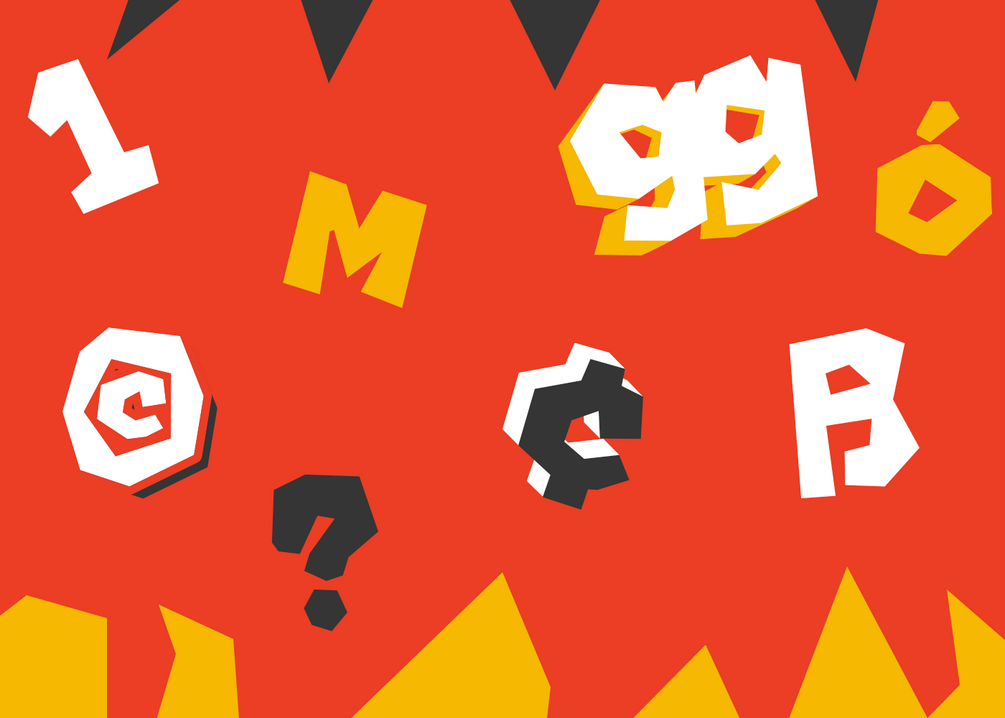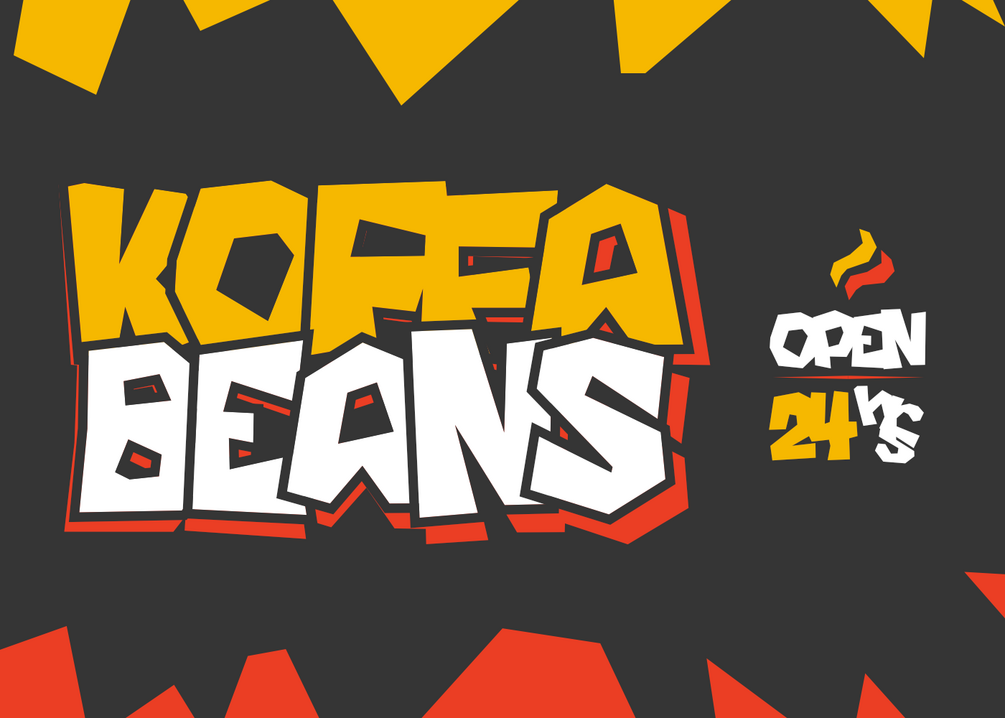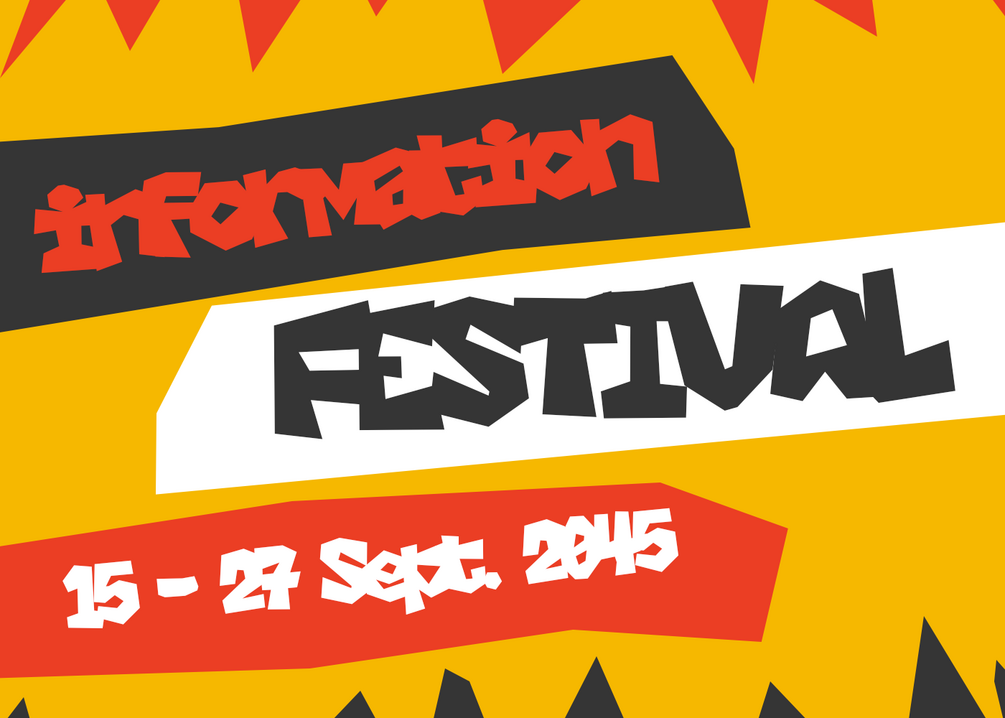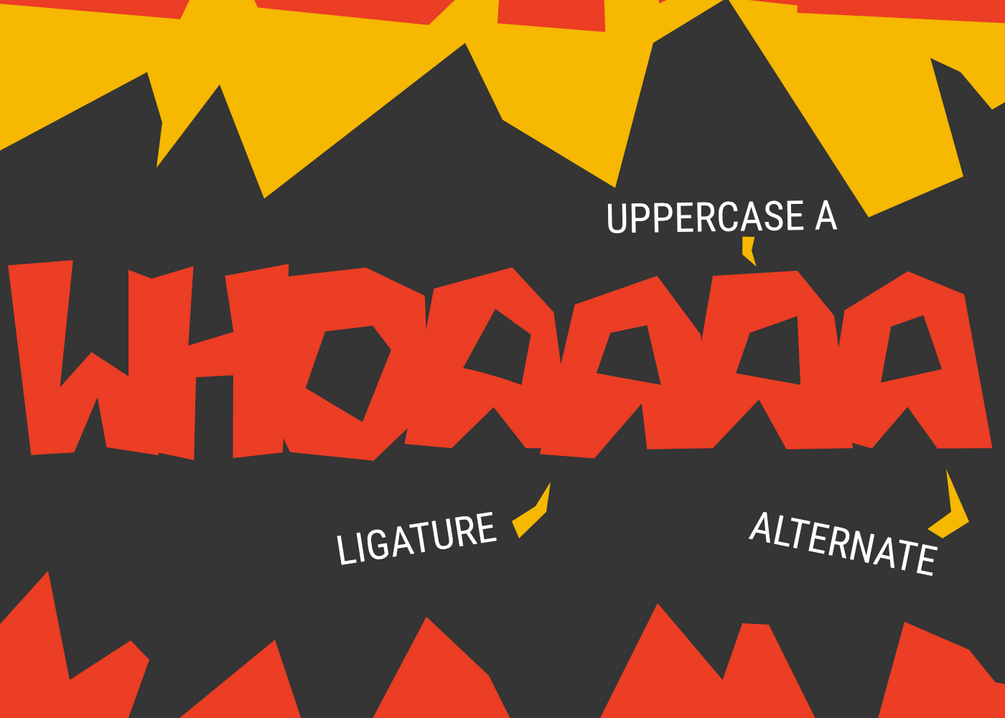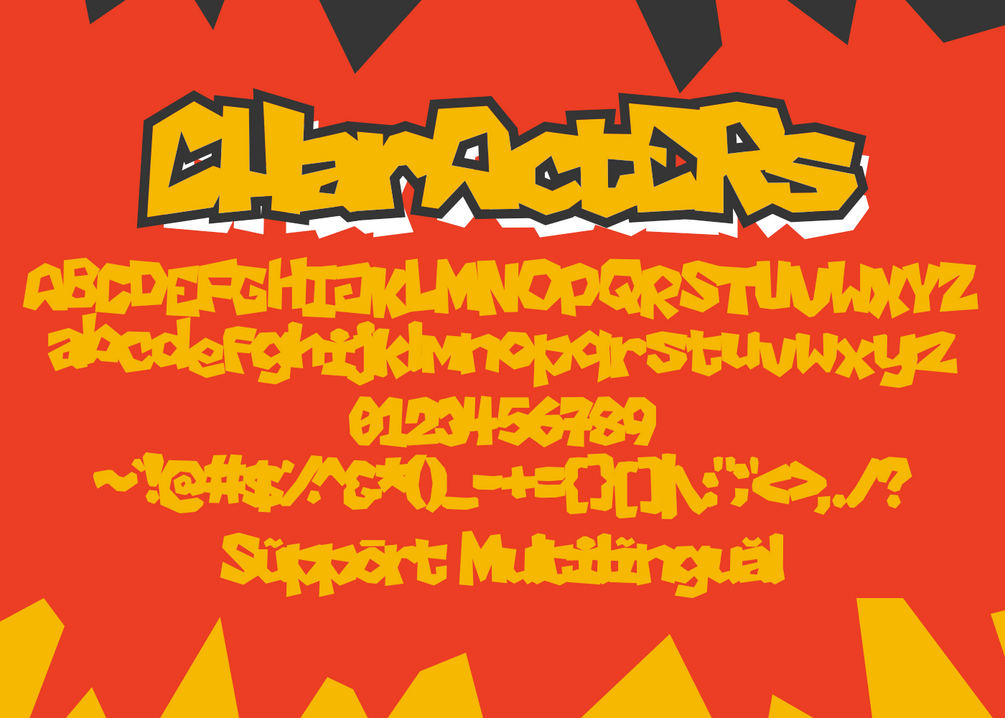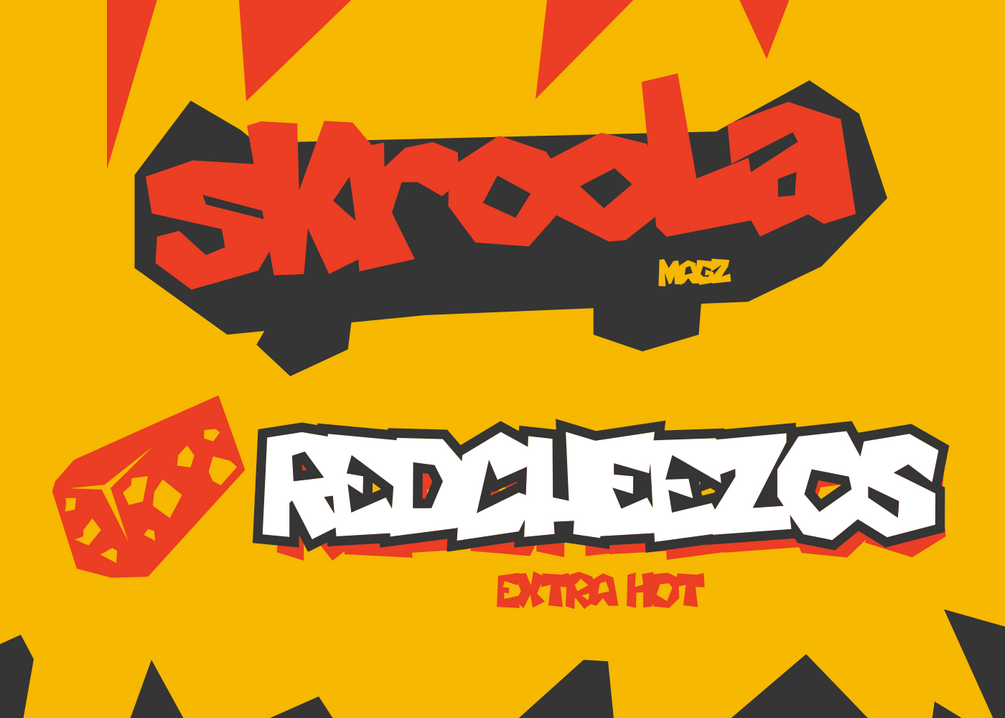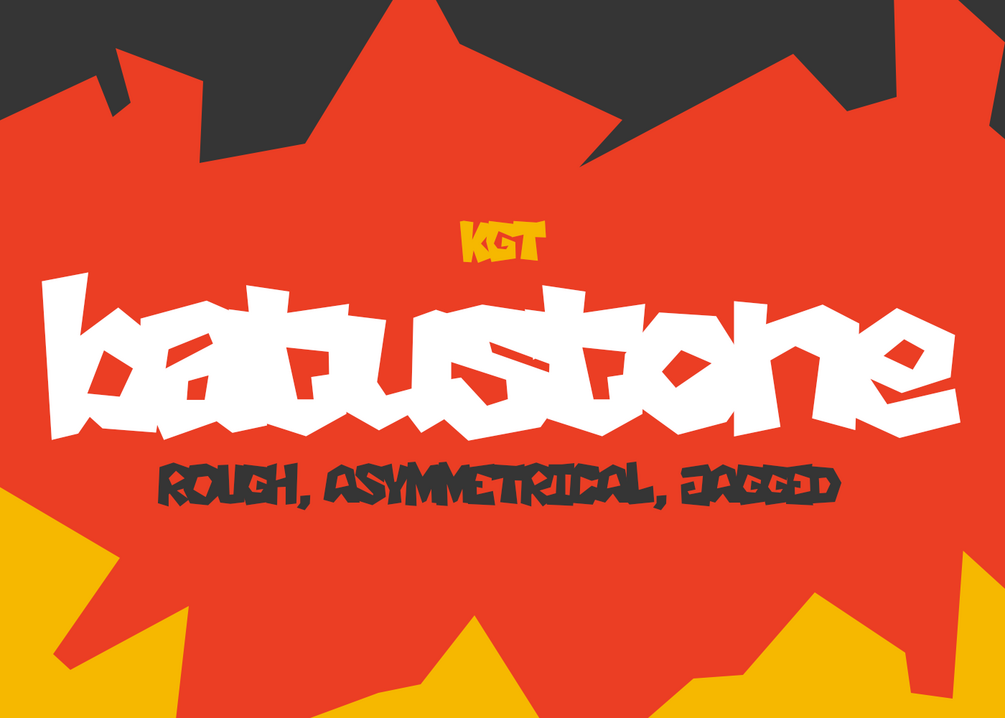
KGT Batustone
Meet KGT Batustone, the bold rebel of typefaces. This font is all about rough edges, quirky angles, and unapologetic asymmetry—it’s like graffiti meets handmade charm. Perfect for projects that need a big personality, Batustone brings energy, movement, and a playful edge to your designs. Whether you're creating posters, logos, or anything that needs to shout “LOOK AT ME!”, this font has got your back. Add a little chaos, but make it stylish—go ahead, make your statement with KGT Batustone!